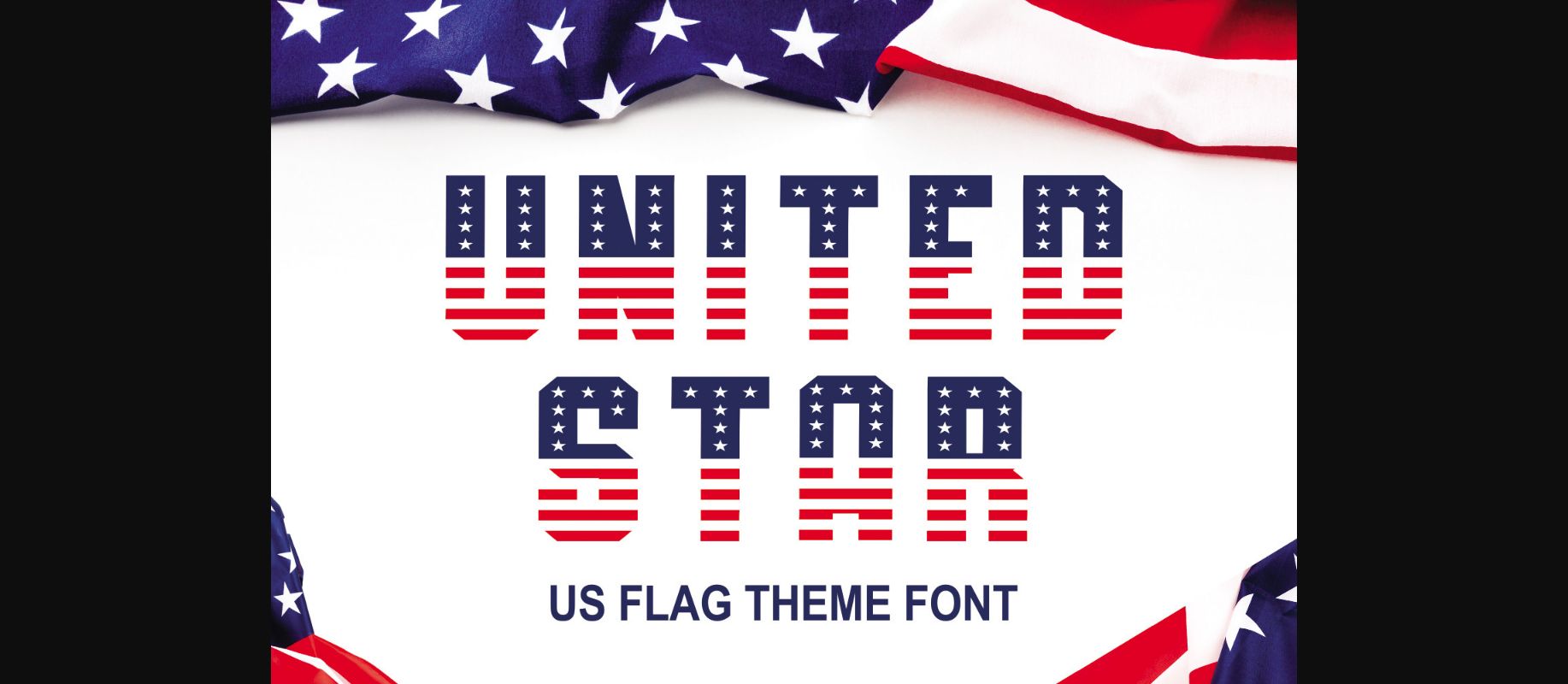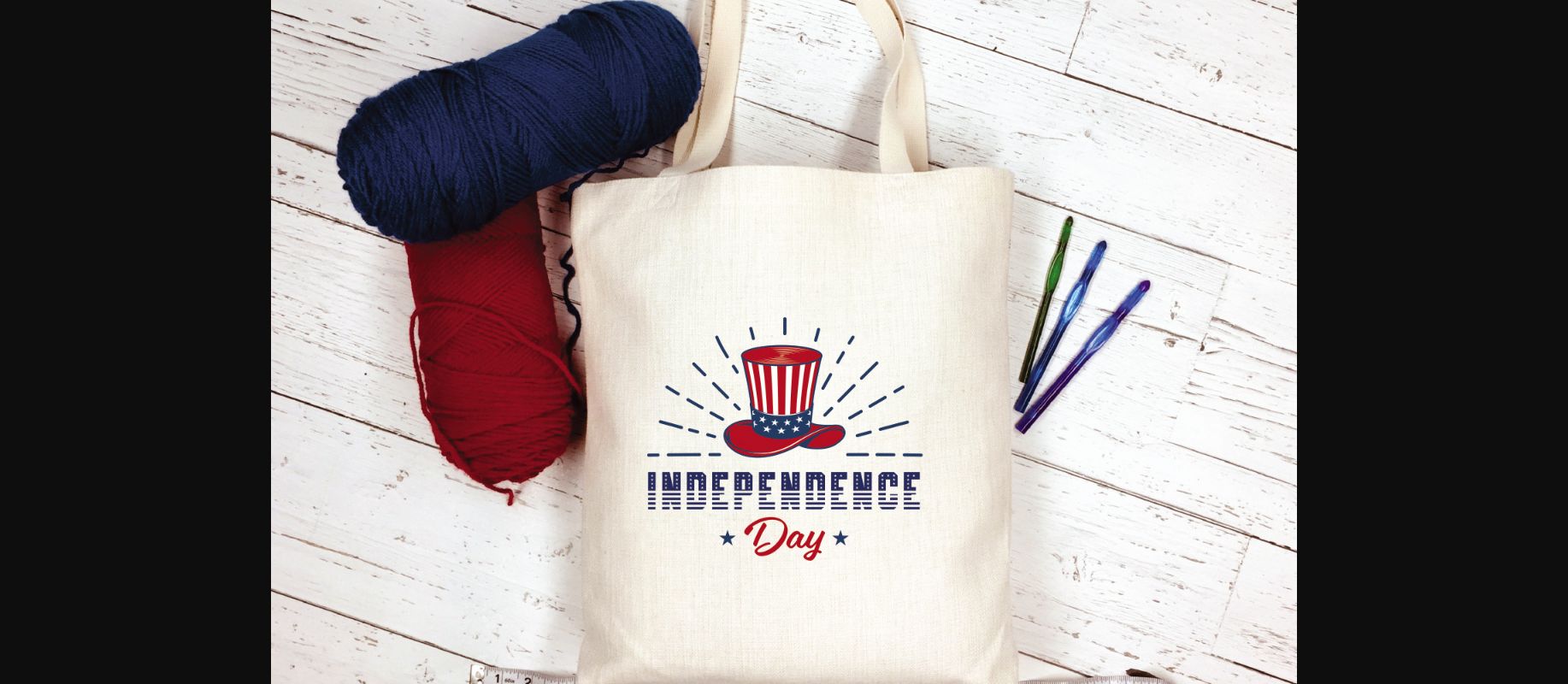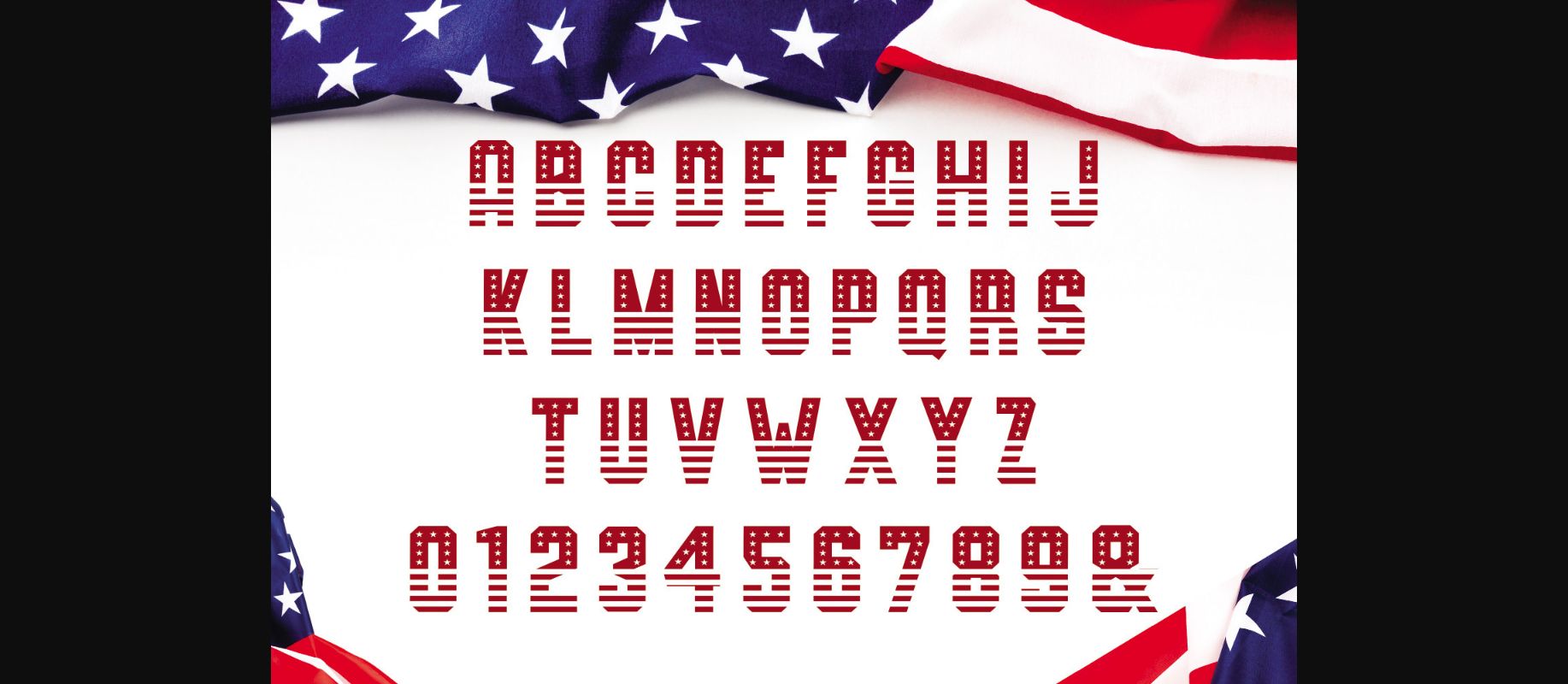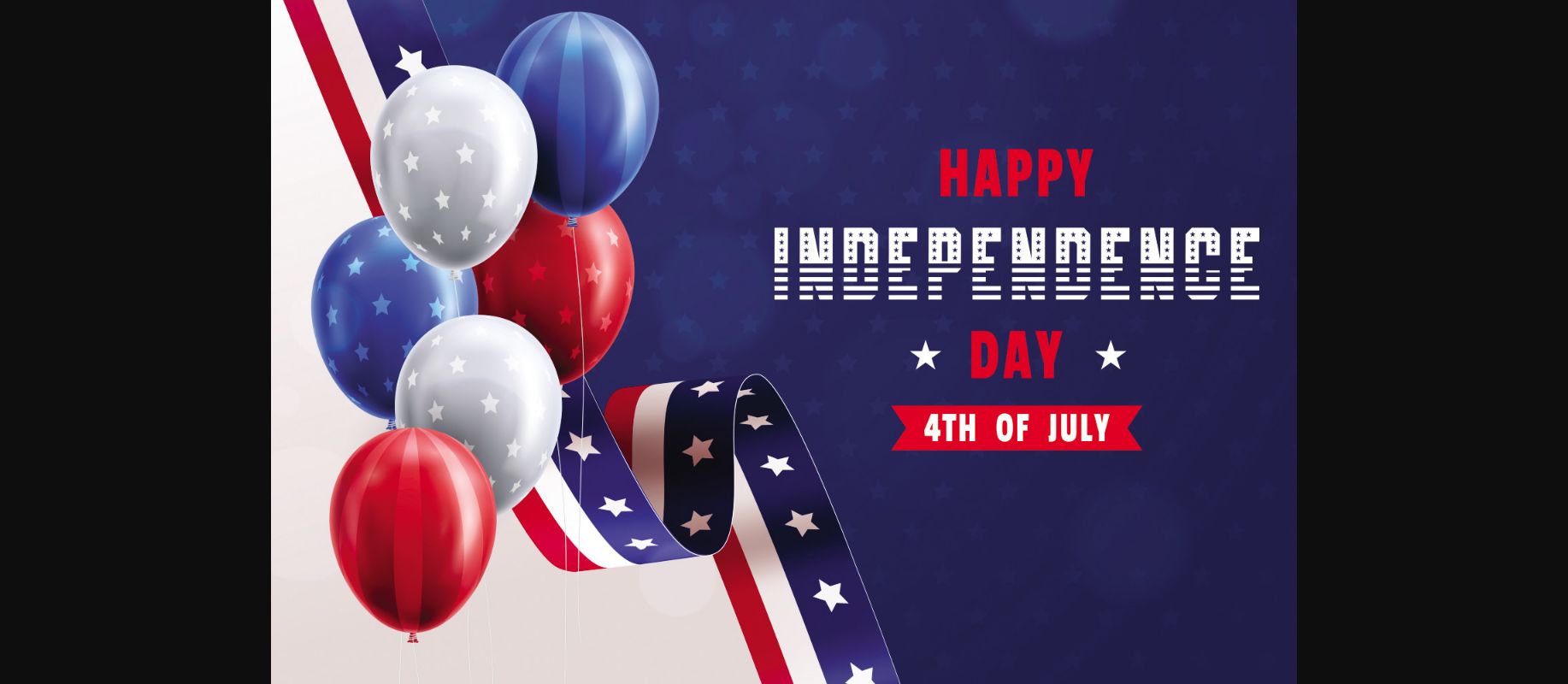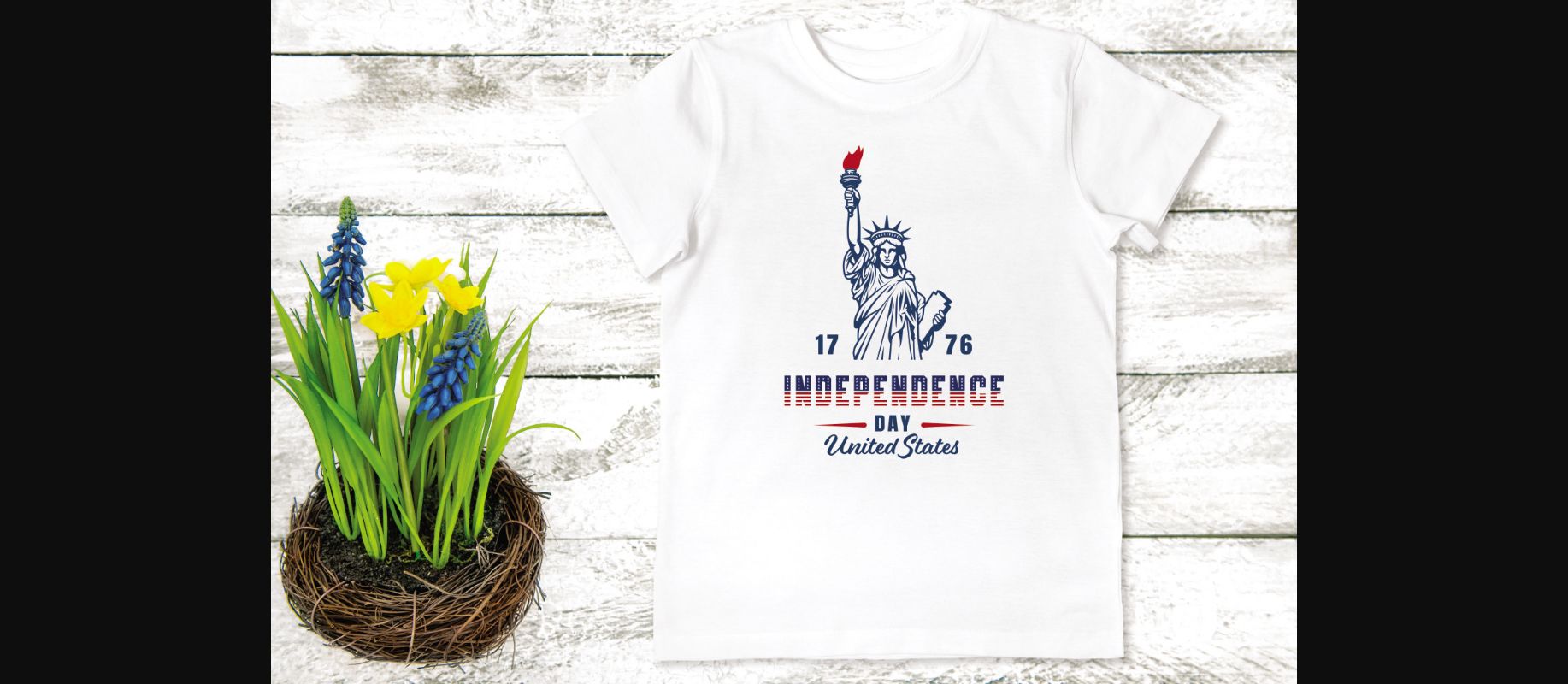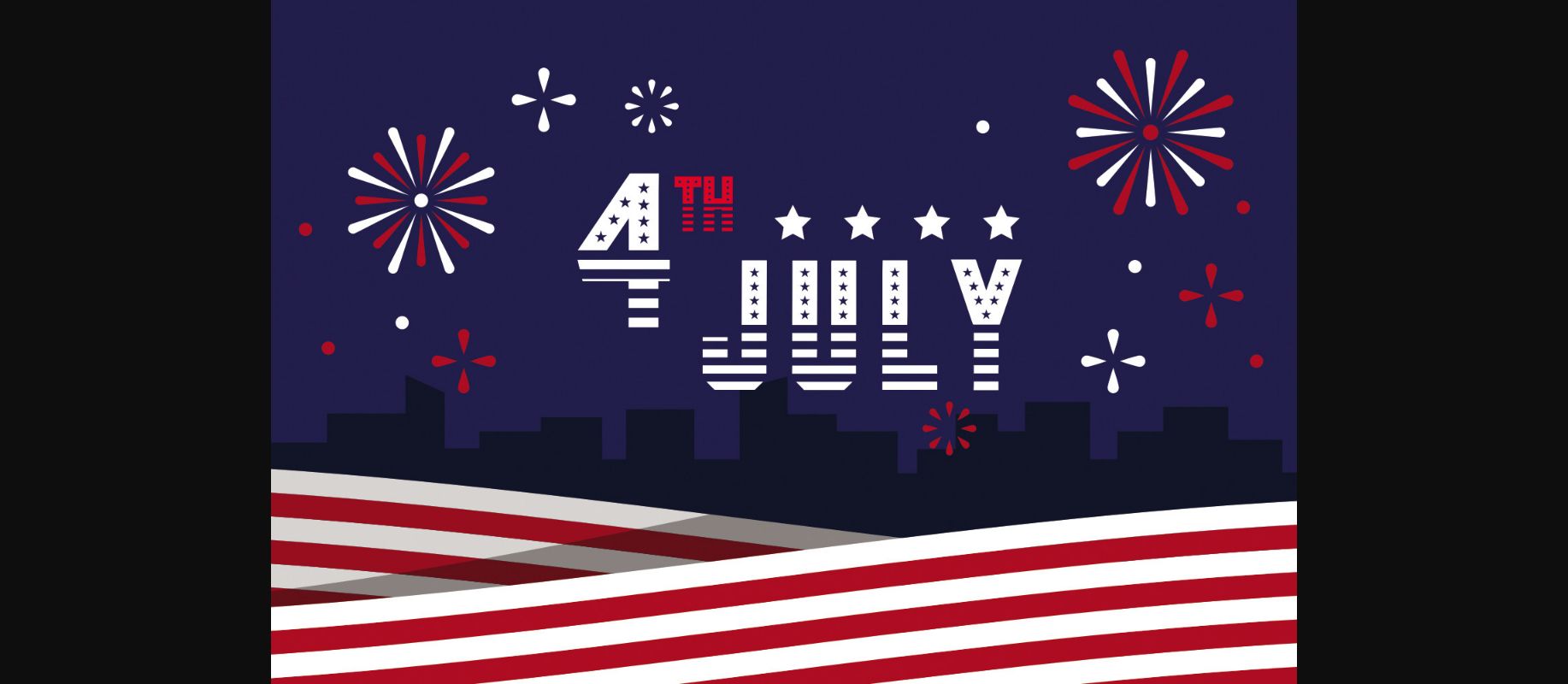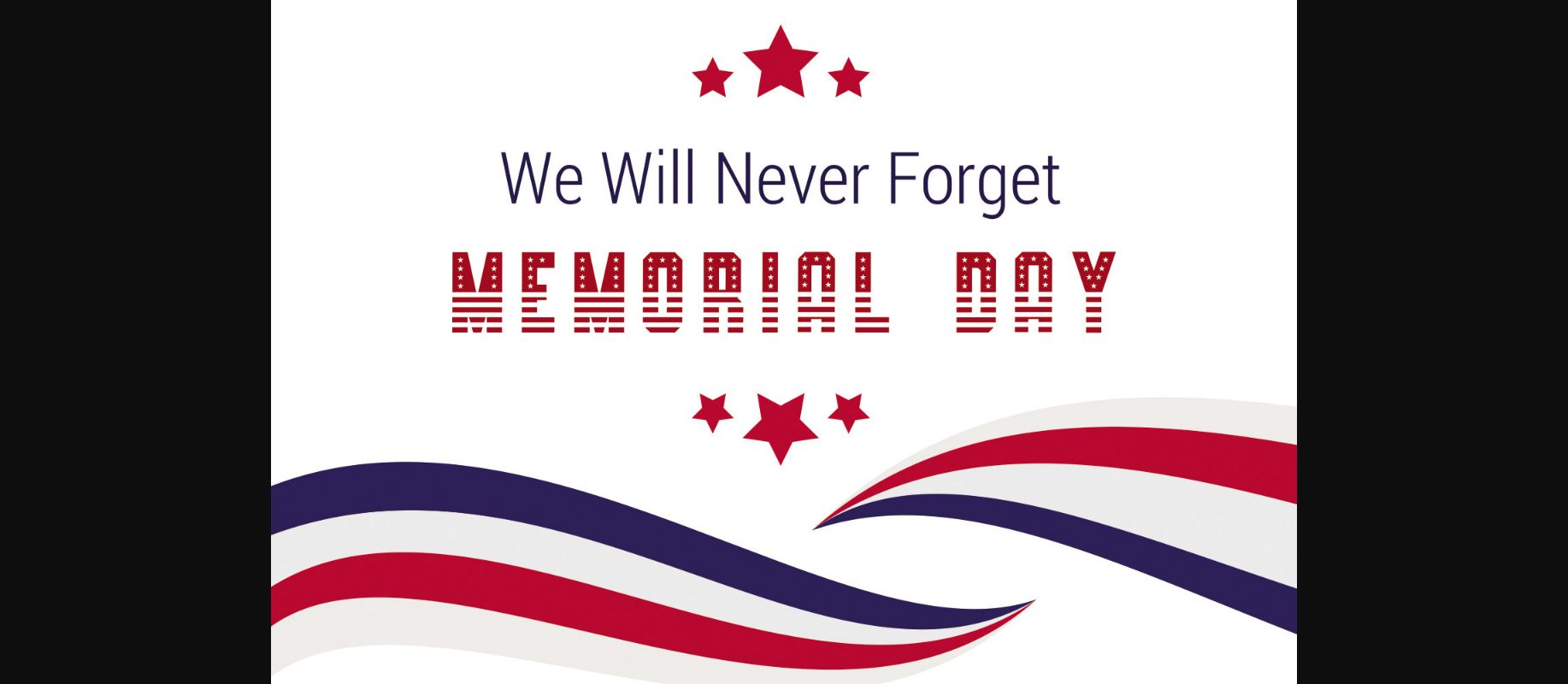
United Star Font
About United Star Font
United star is a unique and outstanding decorative font. It will elevate a wide range of design projects to the highest level, be it branding, headings, wedding designs, invitations, signatures, logos, labels, and much more!